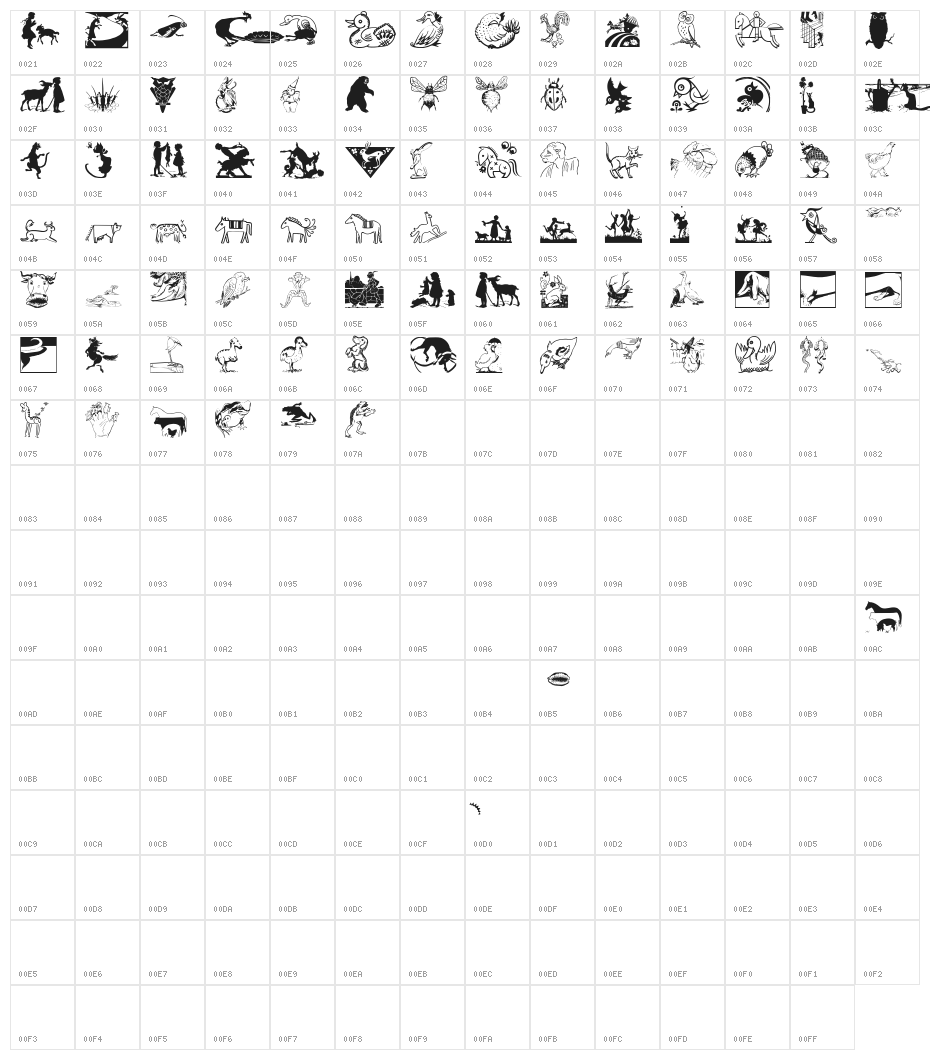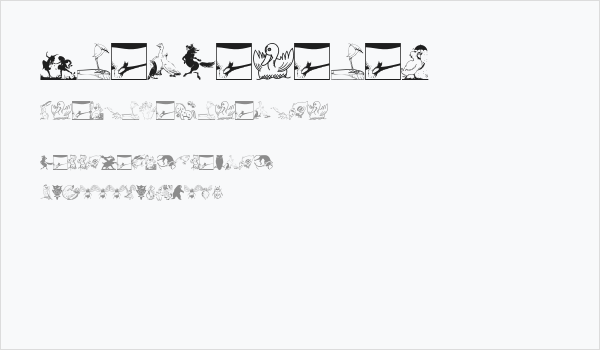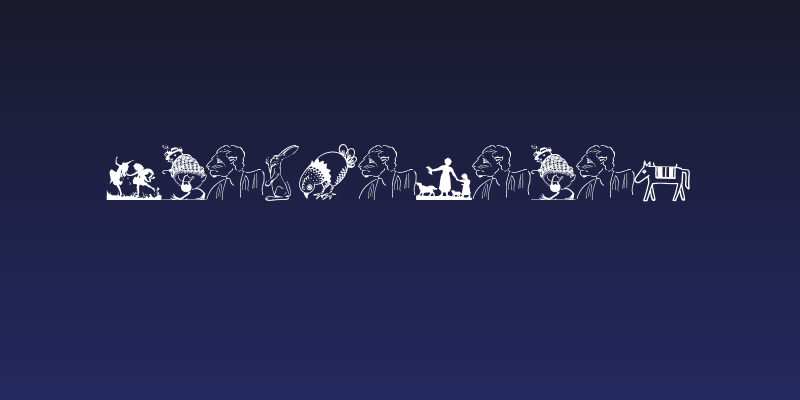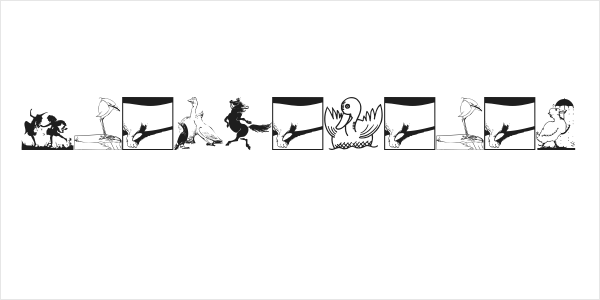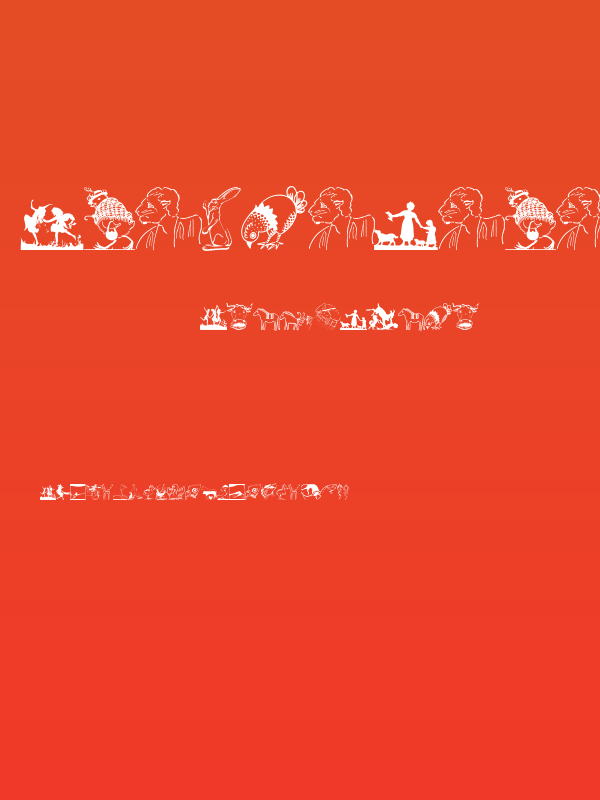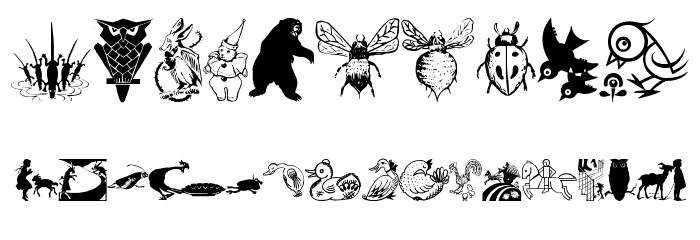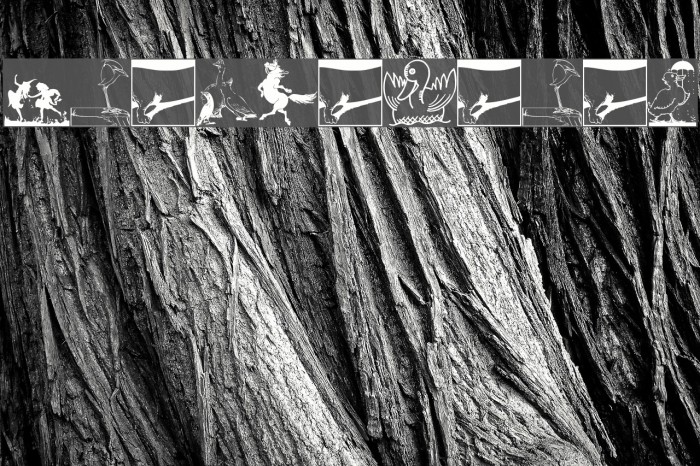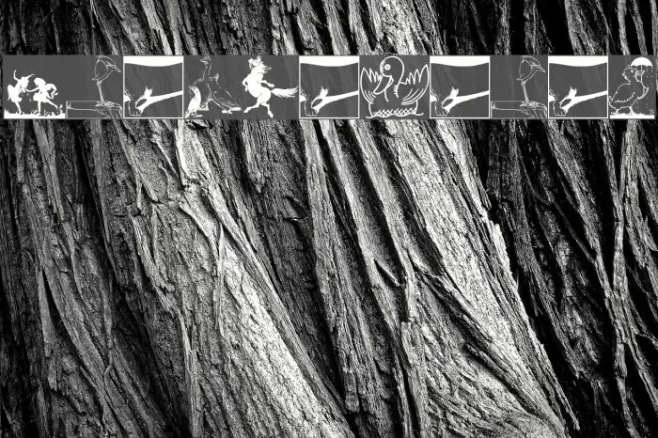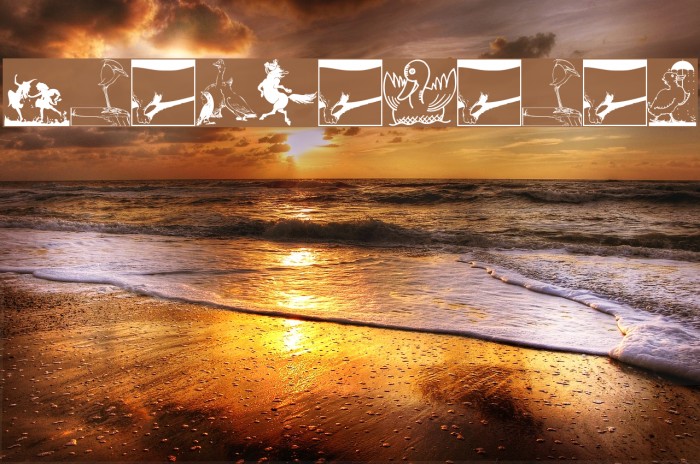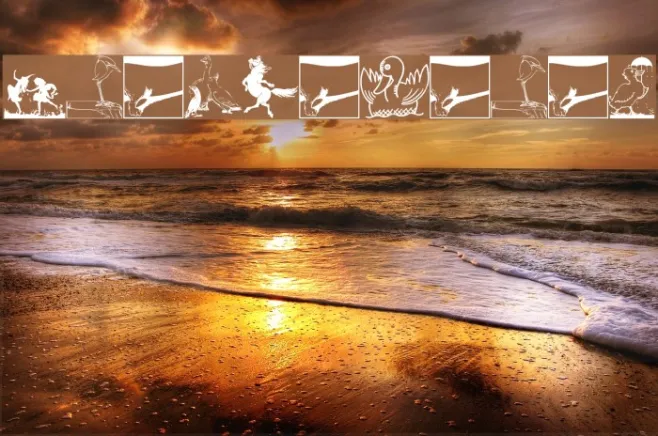
Viechereien Font
Viechereien Description
A decorative dingbat font featuring a wide variety of whimsical, hand-drawn animal illustrations and playful scenes, each glyph representing a unique animal or animal-related motif in black and white line art.
| Overall Style | Decorative, Whimsical, Playful |
| Use Case | Illustrative elements, Decorative accents, Themed graphics |
| Proposed Projects | Children's books, educational materials, animal-themed party invitations, playful branding, decorative borders, scrapbooking. |